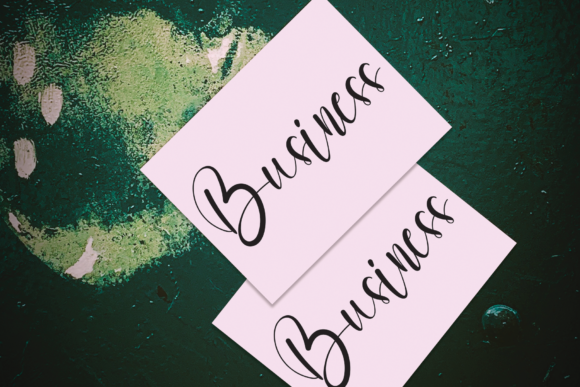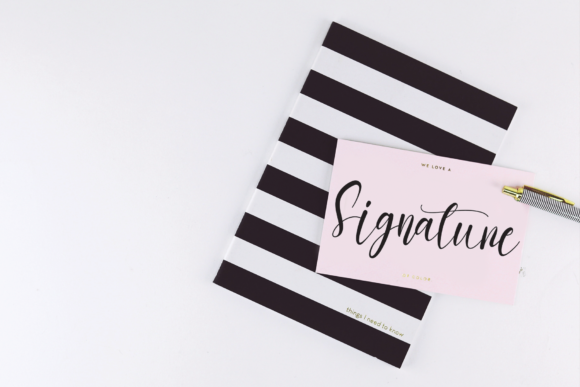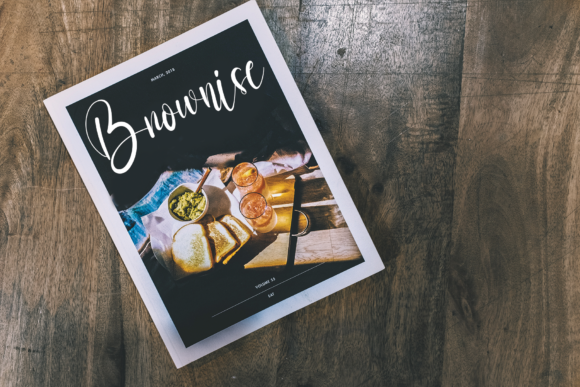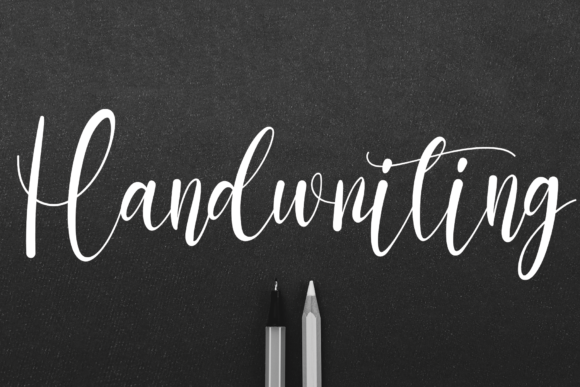
Gatherings Font: The Perfect Choice for Elegant and Personalized Designs
Gatherings Font is a beautiful, cursive script font that exudes elegance and sophistication. Its dainty and joyful nature makes it an ideal choice for designers and crafters looking to add a personalized touch to their creations. In this article, we’ll explore the features and benefits of Gatherings Font, and how it can elevate your designs to the next level.
A Brief Overview of Gatherings Font
Gatherings is an exquisite and cursive script font that is perfect for creating stunning wedding invitations, cards, and other designs that require a touch of elegance. The font’s delicate and refined appearance makes it suitable for a wide range of projects, from formal events to personal gifts.
Key Features of Gatherings Font
- Cursive Script Style: Gatherings Font features a beautiful, cursive script style that adds a touch of sophistication to any design.
- Dainty and Joyful: The font’s dainty and joyful nature makes it perfect for creating designs that require a personal and elegant touch.
- Exquisite and Refined: Gatherings Font is an exquisite and refined font that is sure to impress your clients and audience.
Benefits of Using Gatherings Font
Using Gatherings Font in your designs offers several benefits, including:
- Elegance and Sophistication: Gatherings Font adds a touch of elegance and sophistication to any design, making it perfect for formal events and special occasions.
- Personalized Touch: The font’s cursive script style and dainty nature make it ideal for creating personalized designs that require a human touch.
- Versatility: Gatherings Font can be used in a wide range of projects, from wedding invitations and cards to branding and packaging designs.
Design Ideas Using Gatherings Font
Gatherings Font is a versatile font that can be used in a variety of design projects. Here are some design ideas to get you started:
- Wedding Invitations: Use Gatherings Font to create stunning wedding invitations that set the tone for the big day.
- Cards and Stationery: Create personalized cards and stationery using Gatherings Font for a special touch.
- Branding and Packaging: Use Gatherings Font in branding and packaging designs to add a touch of elegance and sophistication.
- DIY Projects: Use Gatherings Font in DIY projects, such as scrapbooking and crafting, to add a personal touch.
Tips for Using Gatherings Font
Here are some tips for using Gatherings Font in your designs:
- Pair with Other Fonts: Pair Gatherings Font with other fonts to create a unique and visually appealing design.
- Experiment with Colors: Experiment with different colors to find the perfect combination that complements Gatherings Font.
- Use in Combination with Graphics: Use Gatherings Font in combination with graphics and illustrations to create a stunning design.
Gatherings Font is a beautiful and elegant cursive script font that is perfect for designers and crafters looking to add a personalized touch to their creations. With its dainty and joyful nature, Gatherings Font is ideal for creating stunning wedding invitations, cards, and other designs that require a touch of elegance. Whether you’re a designer or crafter, Gatherings Font is a great addition to your font collection.